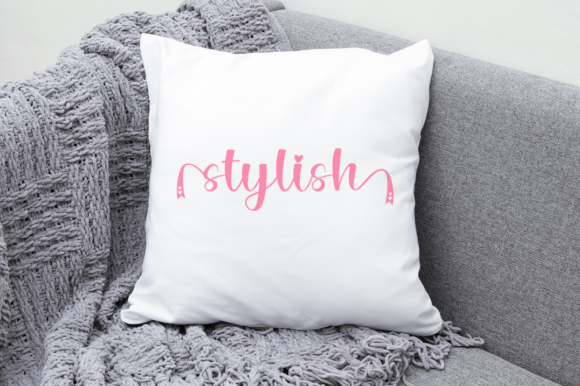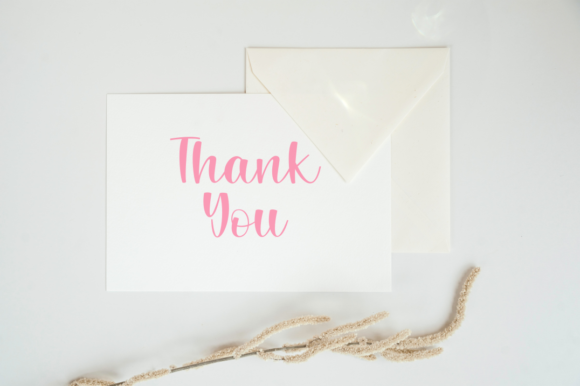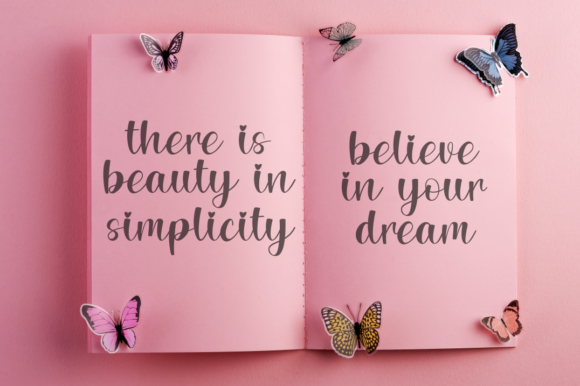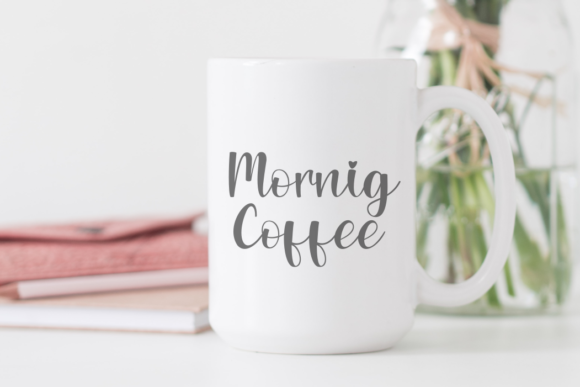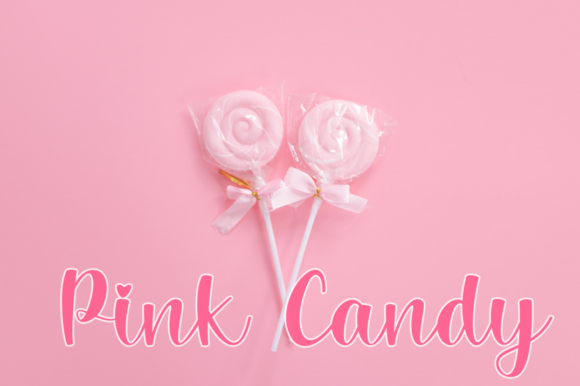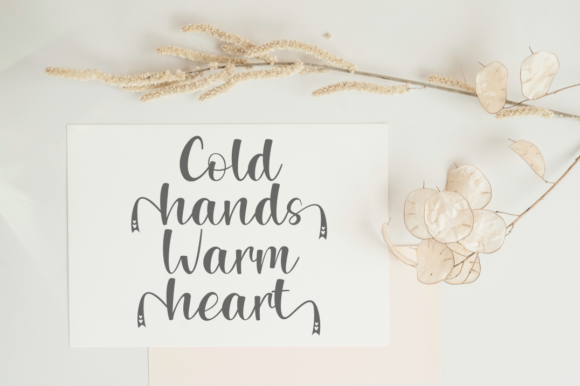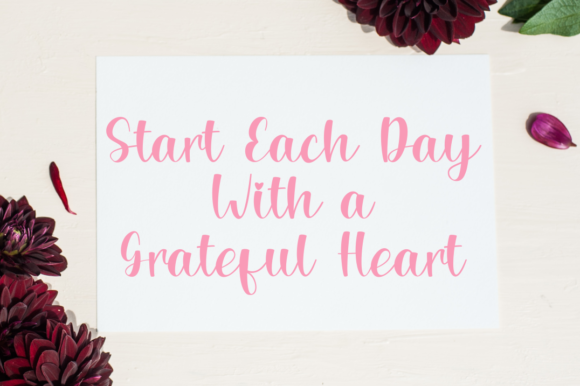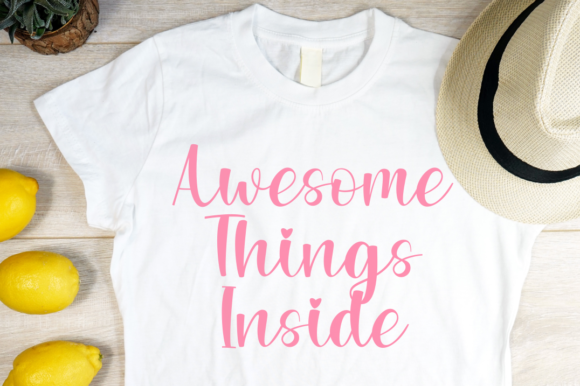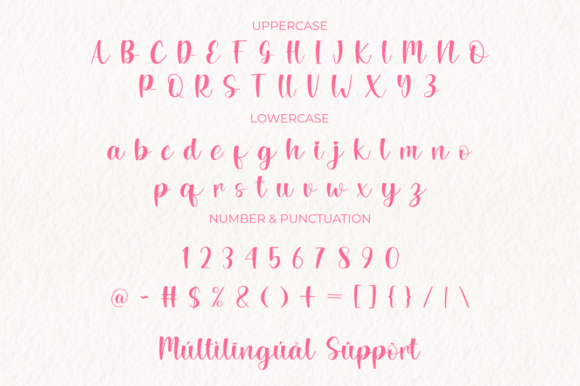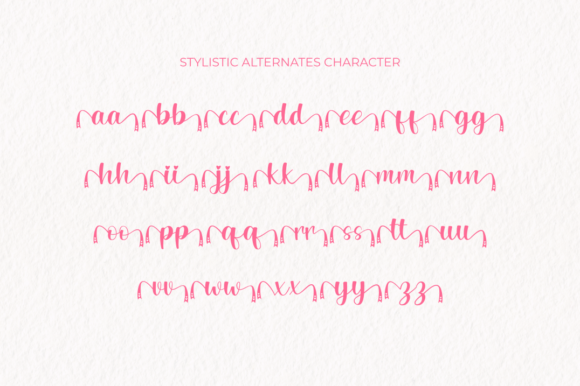
Sweet Ribbon Font
About Sweet Ribbon Font
“Sweet Ribbon” is a charming and adorable handwritten font that exudes a sense of sweetness and authenticity. With its playful and genuine appearance, this font is an excellent choice for various design projects, especially those involving chalkboard quotes or educational materials. The unique look of “Sweet Ribbon” adds a personal and realistic touch to your designs, enhancing their visual appeal and engagement.
The name “Sweet Ribbon” reflects the font’s charming and delightful nature. Just like a ribbon adds a touch of whimsy and decoration to a gift, this font brings a similar sense of joy and charm to your design projects. The handwritten style of the font creates a warm and approachable atmosphere, making it perfect for projects that aim to connect with the audience on a personal level.
“Sweet Ribbon” captures the authentic and imperfect beauty of handwritten text, giving your designs a handmade and genuine feel. The irregularities in the strokes and characters contribute to its realistic appearance, as if it were written with care by hand. This authenticity can be particularly valuable in educational materials, where a relatable and approachable style is essential for effective communication.
The font’s PUA encoding ensures easy access to a wide range of glyphs and swashes, allowing you to customize and enhance your designs effortlessly. Whether you’re working on chalkboard-inspired quotes, educational resources, or any other creative project, “Sweet Ribbon” enables you to infuse a touch of whimsy and realism that resonates with your audience.
“Sweet Ribbon” is more than just a font – it’s a way to bring a personal and genuine touch to your designs. Its cute and lovely appearance adds a playful dimension to your projects, making them more engaging and appealing to a variety of audiences. Whether you’re creating teaching materials or adding a unique twist to your designs, “Sweet Ribbon” is a delightful choice that adds a touch of charm to every project.